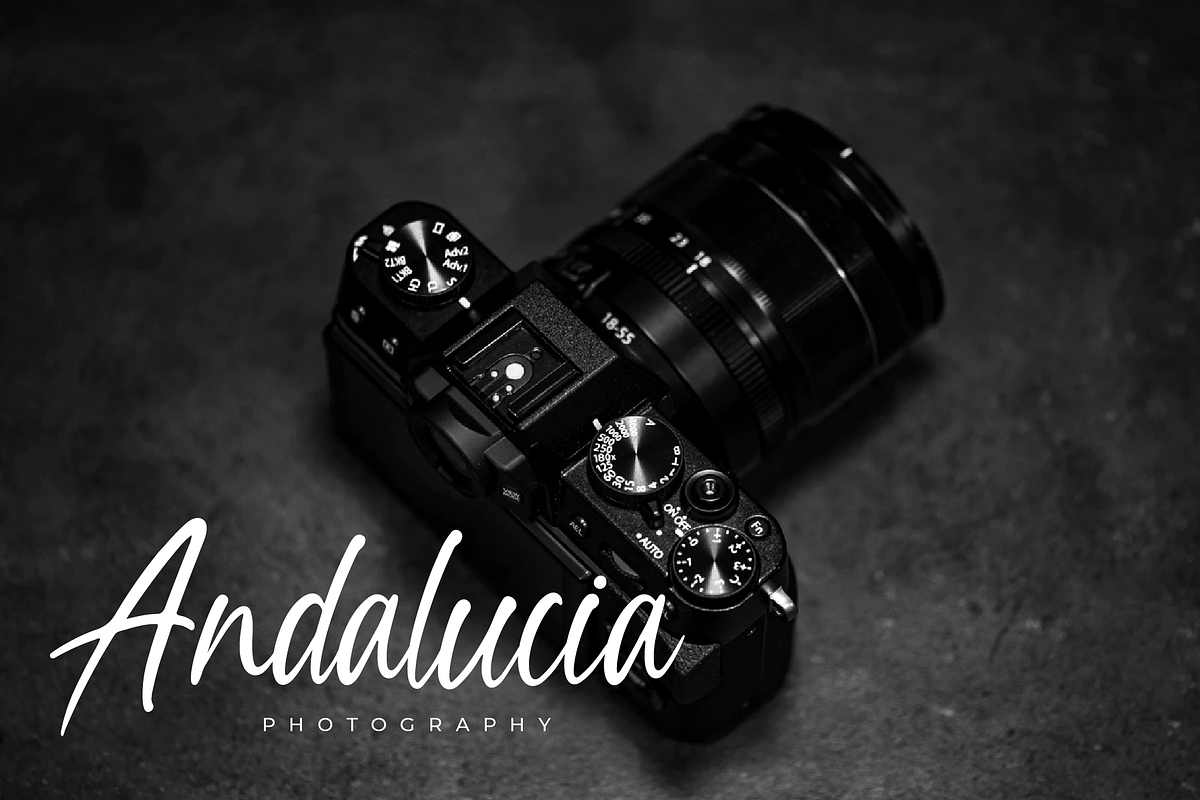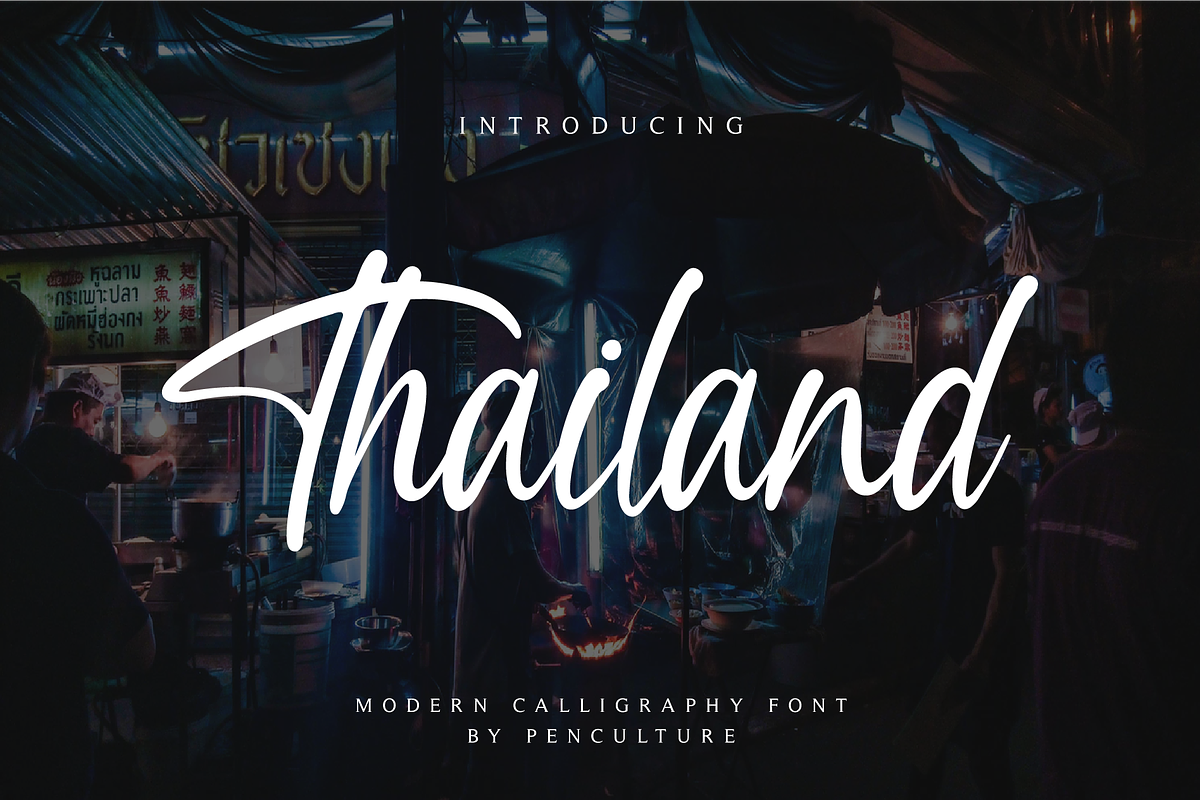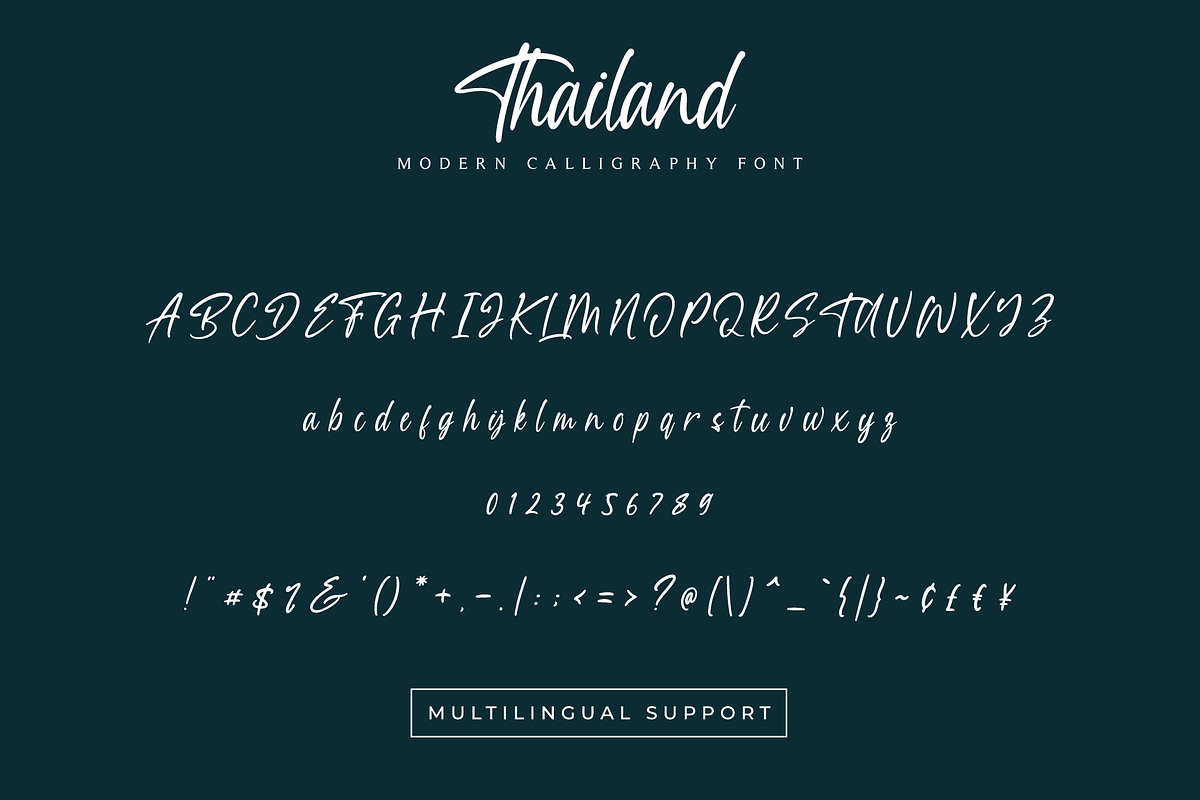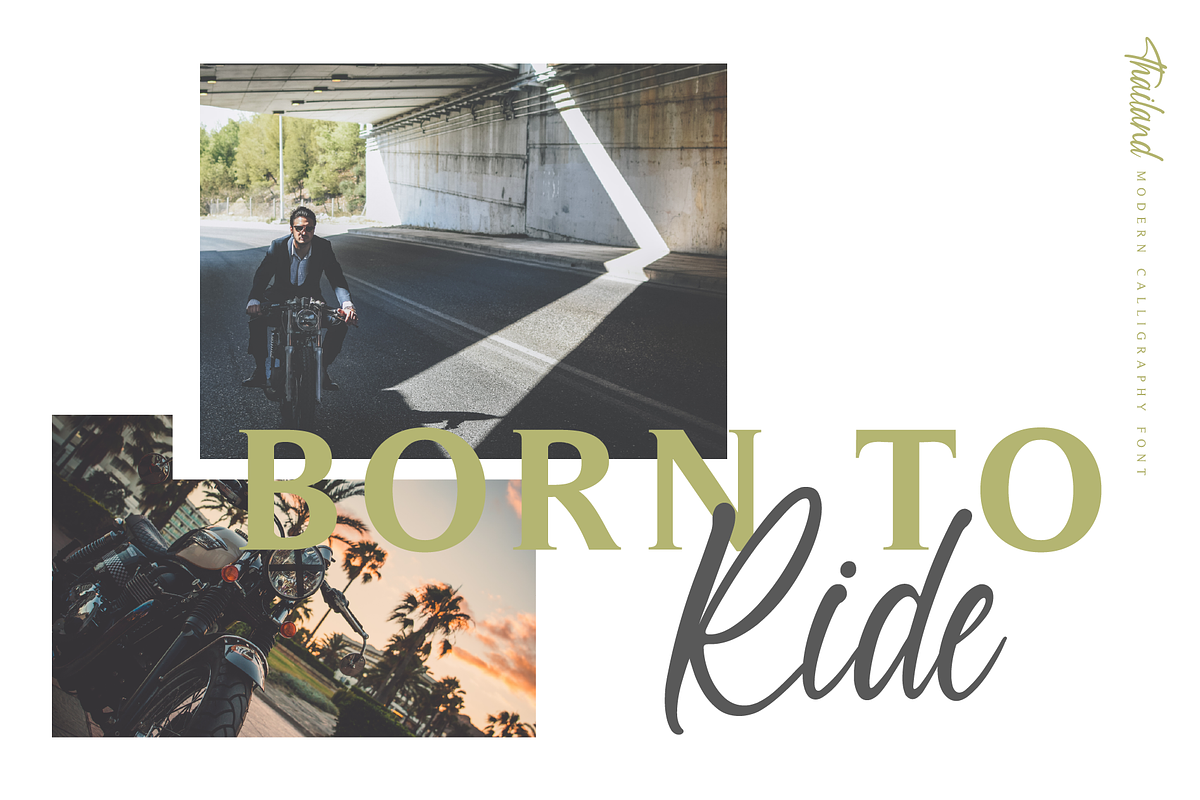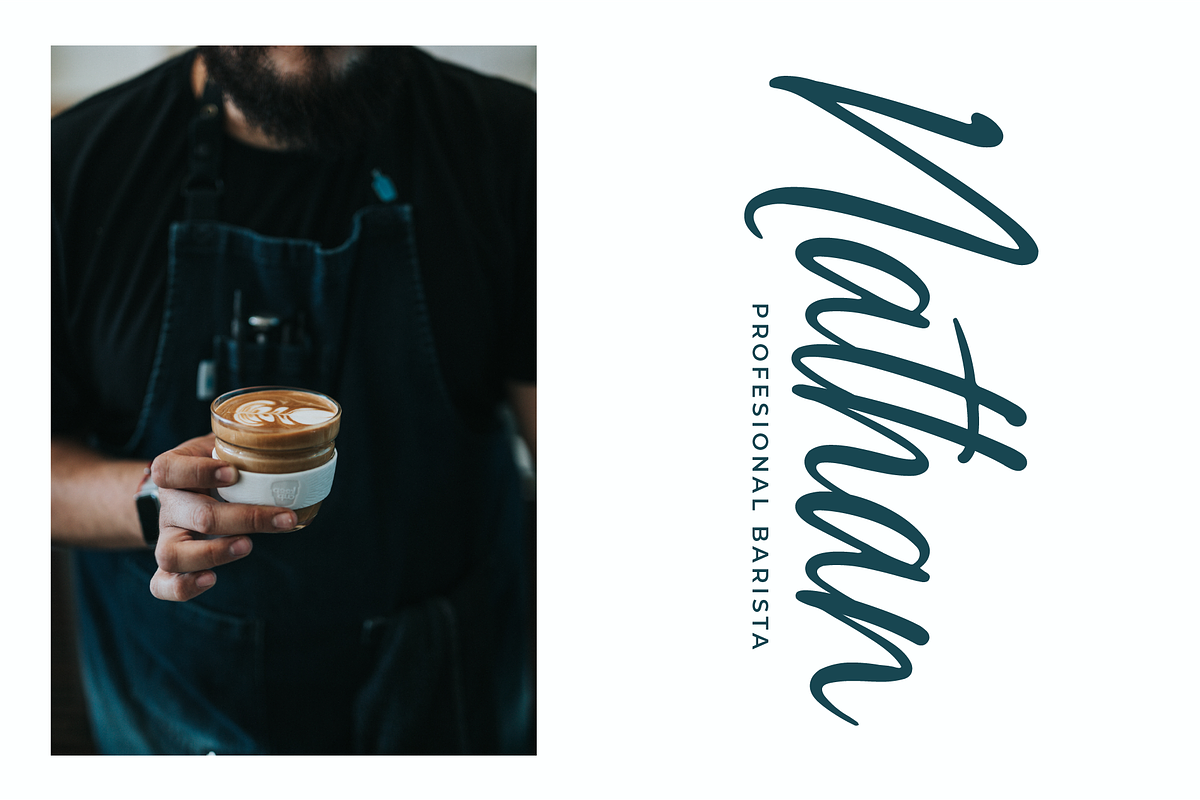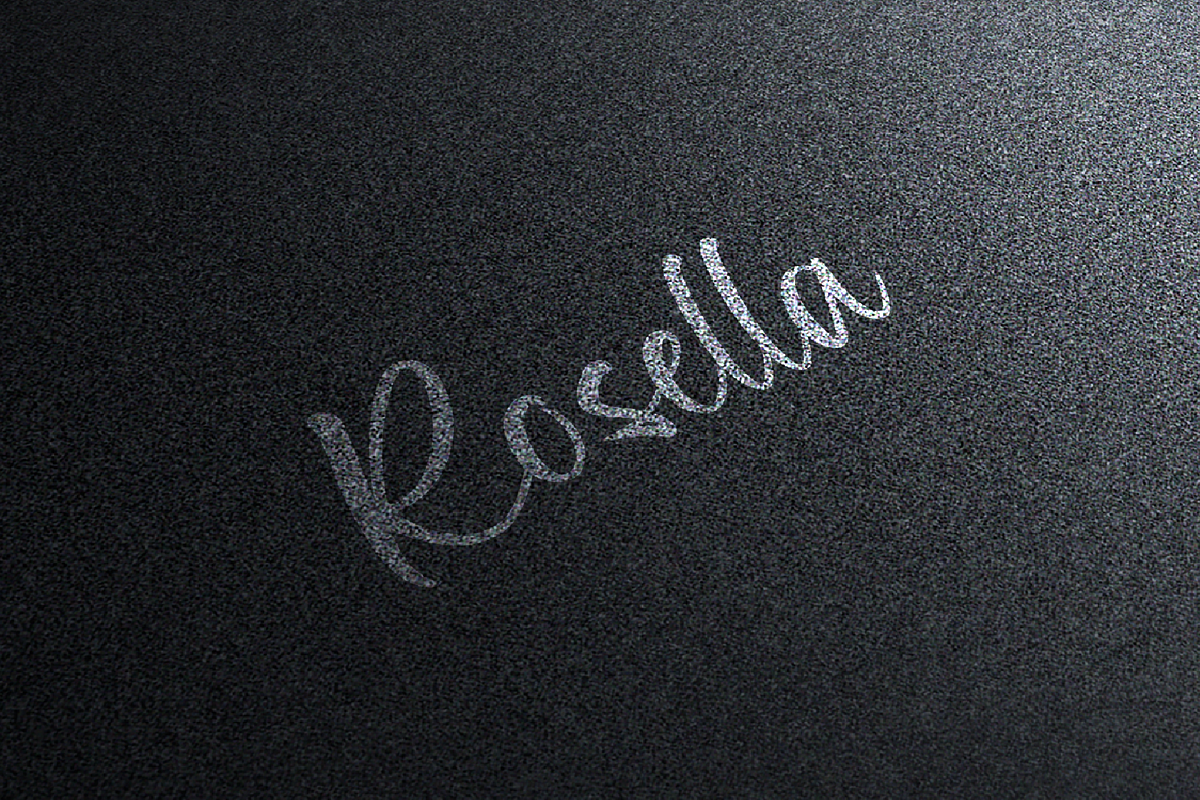
Thailand Script Font
Thailand is beautiful modern calligraphy that easy to use and very suitable for various needs.
Thailand Script Font by Pen Culture fits naturally into Branding, posters, packaging, typography.